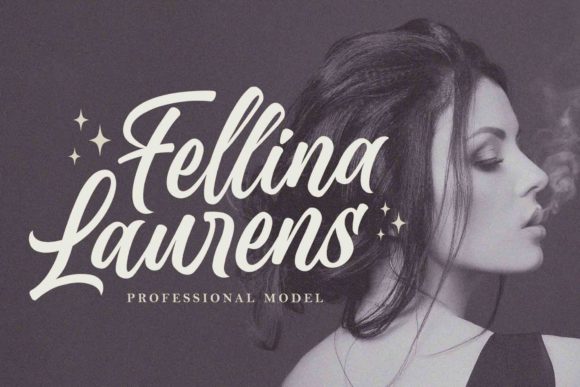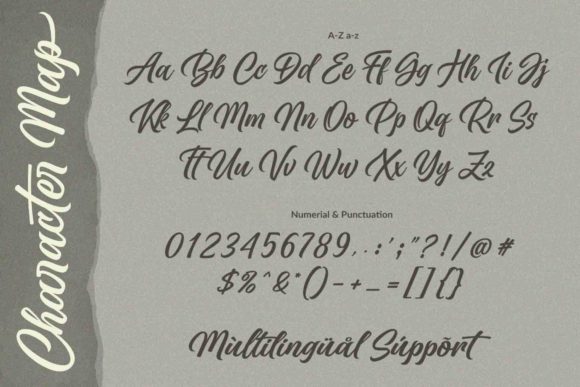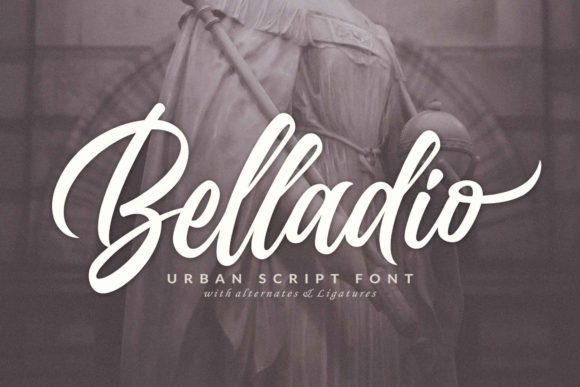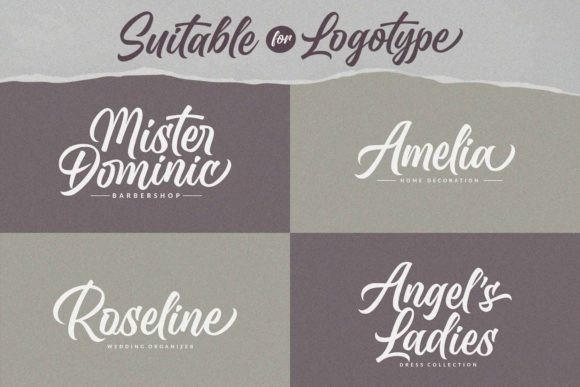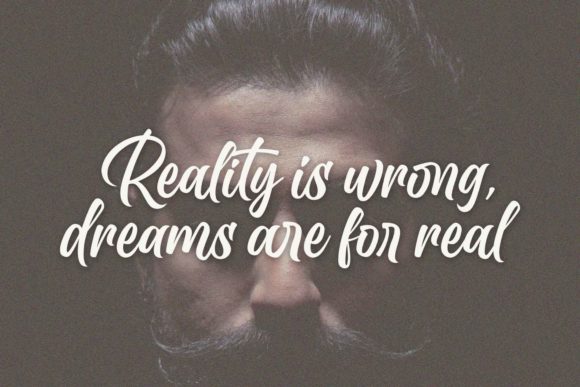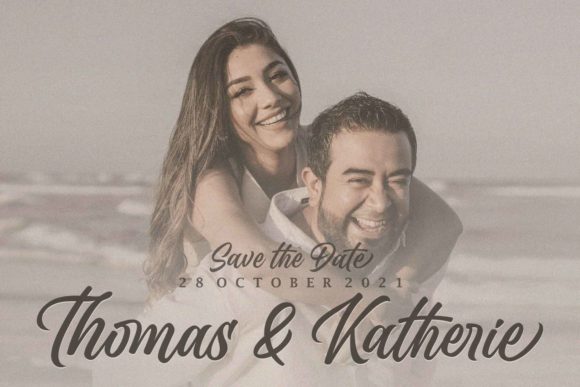
About Belladio Font
Belladio is a modern and stylish script font, carefully created with a touch of elegance in every character. It will help you create projects with a personal note that expresses confidence and exuberant energy. This font is PUA encoded which means you can access all of the glyphs and swashes with ease!